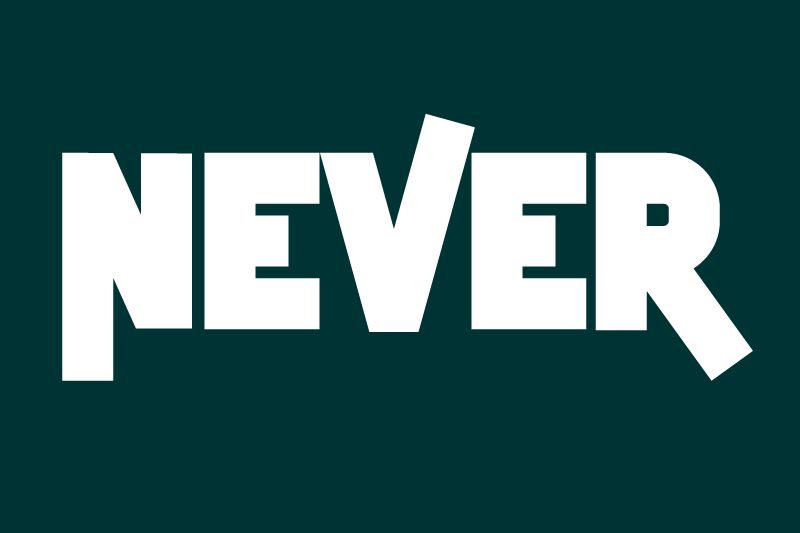
Never Bold
Never Bold font by Design Vector10 is a modern display typeface that makes more sense in titles. The font letters achieve an impactful combination by having a look that’s both geometric and monolithic. They resemble architectural figures and so lend a lot of prominence to the written features.
In addition to headings, use this free modern display font for logos, posters, banners, magazines, books, packaging design – most print projects except everyday copies with large contents. You can also create beautiful eye-catching website headers and social media backgrounds with Never Bold.